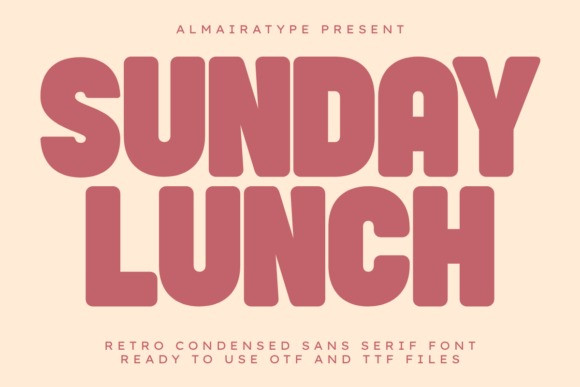
Sunday Lunch Font
Designer: Almairatype Studio
Sunday Lunch Font is a bold retro condensed sans serif font meticulously designed to bring a delightful vintage warmth and high-impact aesthetic to your modern creative projects. Featuring a robust, compressed structural anatomy and friendly playful contours, this typeface beautifully bridges the gap between classic 70s nostalgia and contemporary commercial design trends. It stands out as an exceptional choice for professional graphic designers, independent clothing brands, custom apparel makers, passionate craft lovers, and Print on Demand (POD) entrepreneurs looking to create high-converting merchandise items. Whether you are building an eye-catching restaurant brand identity, designing trendy summer t-shirt lines, customizing unique product packaging layouts, or producing striking social media posters, Sunday Lunch ensures maximum readability and a distinct professional edge. Its ultra-clean vector outlines guarantee full technical compatibility with popular craft cutting software and digital vinyl plotters like Cricut and Silhouette, offering a flawless, hassle-free weeding experience for personalized stickers, mugs, and DIY craft projects. Elevate your commercial branding toolkits and artistic design portfolios with the inviting, powerful, and versatile character of the Sunday Lunch typeface.